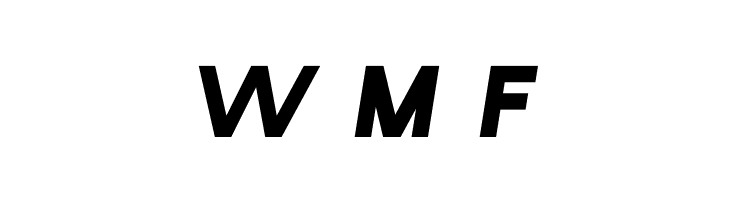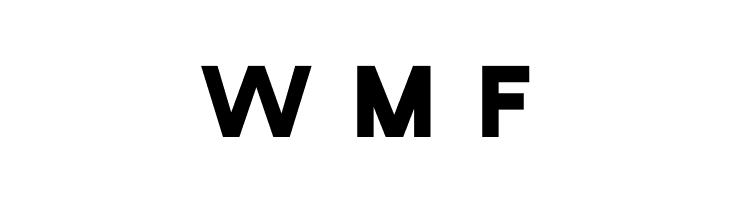
A sleek, futuristic font with geometric shapes and a modern aesthetic.
A futuristic, geometric font with bold, clean lines and squared edges.
A futuristic, geometric font with clean lines and a modern aesthetic.
A futuristic, geometric font with clean lines and angular shapes.
A bold, modern sans-serif font with clean lines and a strong presence.
A bold, italicized font with strong, dynamic strokes and a modern aesthetic.
A modern geometric sans-serif font with clean lines and balanced proportions.
A sleek, modern italic font with consistent stroke width and a dynamic appearance.
A sleek, modern italic font with clean lines and balanced proportions.
A modern, geometric sans-serif font with a clean and minimalist design.
A sleek, light, and italicized font with a modern and elegant style.
A modern, geometric font with tall, narrow characters and medium contrast.
A modern, high-contrast font with a sleek and elegant design.
An elegant, light oblique font with sleek, elongated characters.
A modern, elegant font with a light, airy appearance and subtle slant.
A playful font with cat illustrations integrated into each character.
A sleek, geometric font with a modern and minimalist design.
A modern geometric sans-serif font with clean lines and balanced proportions.
A modern, geometric sans-serif font with uniform stroke width and clear legibility.
A geometric, thin-lined font with a minimalist and modern design.
A light, slab serif font with a subtle blur effect, blending traditional and modern styles.
A sleek, modern, and condensed font with a light weight and tight spacing.
( Fonts by The League of Moveable Type - theleagueofmoveabletype.com )
A minimalist, thin-line font with a modern and elegant style.
( Fonts by Tyler Finck )
A modern, minimalist font with tall, slender characters and uniform stroke width.
( Fonts by Vernon Adams - Personal-use only. For commercial use please contact owner. )
A sleek, modern, extra-light italic font with a narrow, streamlined design.
( Copyright 2016 The Oswald Project Authors (https://github.com/googlefonts/OswaldFont) )
A modern, tall, and narrow sans-serif font with a clean and professional look.
A modern, tall, and narrow sans-serif font with clean lines and balanced spacing.
A sleek, modern font with a subtle italic slant and consistent stroke weight.
A bold, decorative font with a vintage, western style.